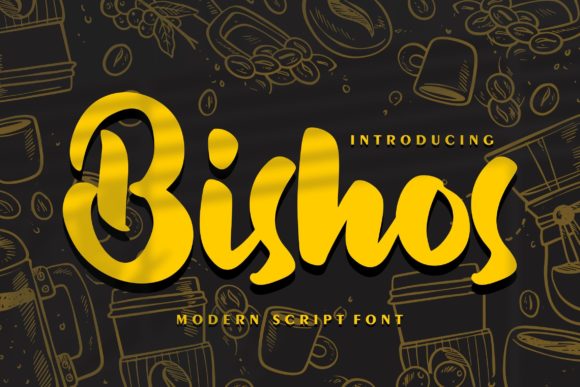
Prepare yourself to be captivated by Bishos Font, a remarkable script typeface that oozes charm and sophistication. This elegant handwritten font is crafted with thick, sweeping strokes that dance across the page, adding a touch of playfulness to your designs. With its captivating curves and stylish flourishes, Bishos Font will elevate your projects to new heights of beauty and elegance.
Immerse yourself in the world of Bishos Font, where creativity knows no bounds. Whether you're a passionate designer, a dedicated artist, or simply someone who appreciates the art of typography, Bishos Font is the perfect choice for adding a personal touch to your work. Its versatile nature makes it suitable for a wide range of projects, from casual designs to formal invitations.
Step into a realm of endless possibilities with Bishos Font. Create eye-catching logos that leave a lasting impression, design stunning social media graphics that captivate your audience, or craft heartfelt invitations that evoke a sense of wonder and delight. The possibilities are truly limitless with this extraordinary font.